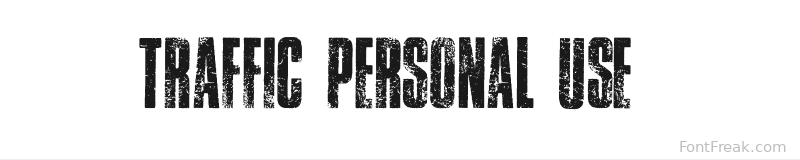
TRAFFIC PERSONAL USE
TRAFFIC PERSONAL USE font by Billy Argel Fonts is a striking display typeface that falls into the decorative category. Characterized by its bold, rugged appearance, this font features a distressed texture that gives it a unique, urban vibe, perfect for capturing attention. The stroke weight is consistent, providing a solid feel, while the spacing strikes a balance that enhances readability without compromising style. The decorative elements, including its rough edges, contribute to a sense of authenticity and personality, making it ideal for various creative applications.
This font is particularly well-suited for use in projects such as movie posters, where its edgy aesthetic can evoke a sense of excitement and intrigue. It also shines in the realm of restaurant menus, especially for establishments that wish to convey a casual yet trendy atmosphere. Additionally, TRAFFIC PERSONAL USE font can elevate the design of promotional flyers and social media graphics, appealing to content creators who wish to make a bold statement. Small business owners looking to brand their products or services will find this font an excellent choice for packaging and branding materials.
Targeting graphic designers and content creators, TRAFFIC PERSONAL USE font offers versatility and a distinctive flair that can enhance any project. Whether you are a professional designer or a hobbyist, this font provides an excellent option for those seeking to add a unique touch to their work.